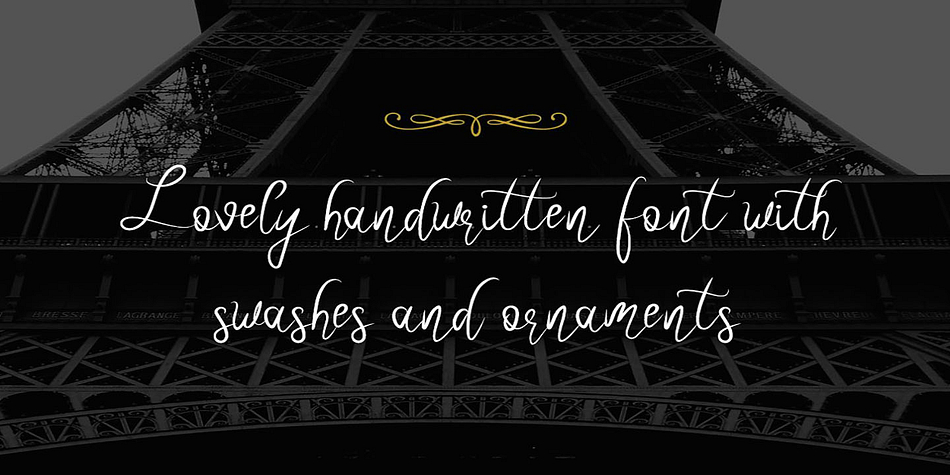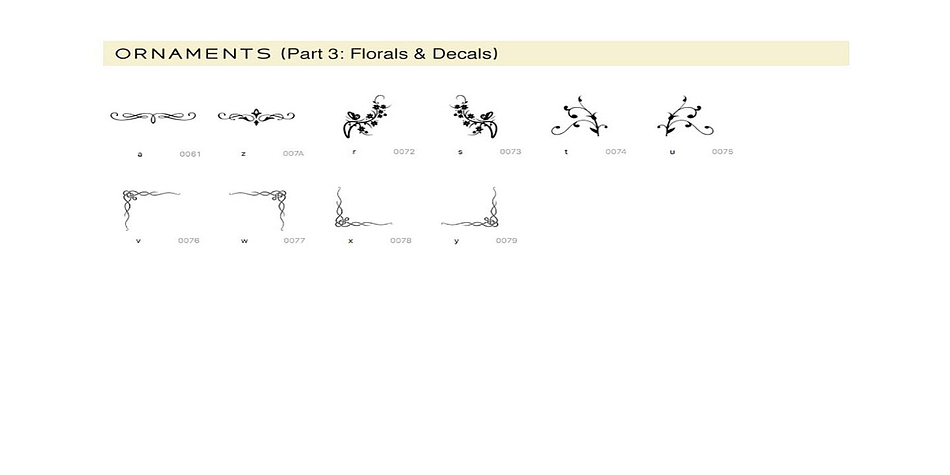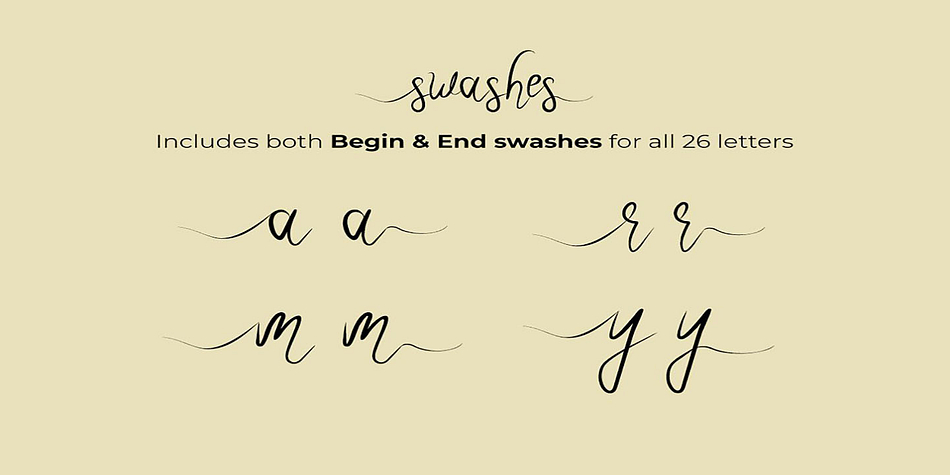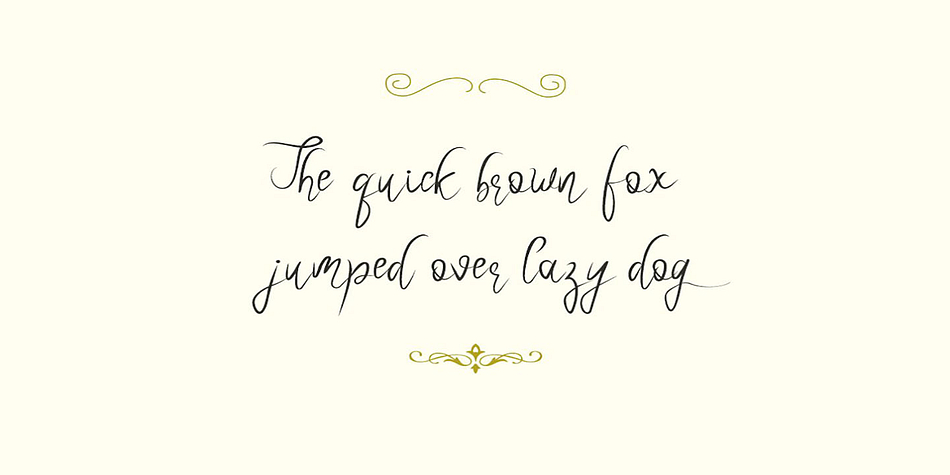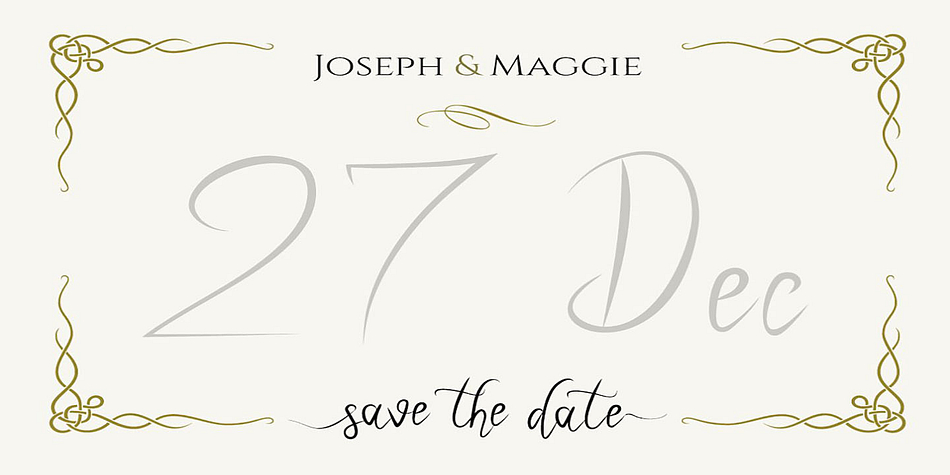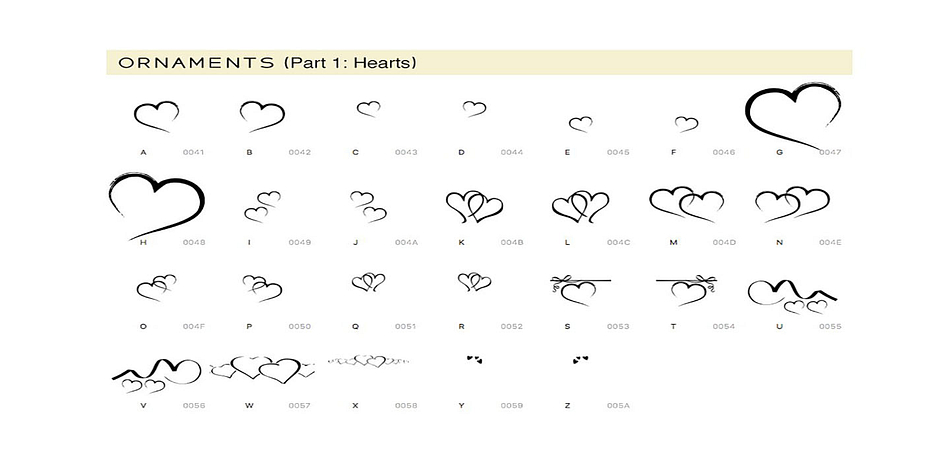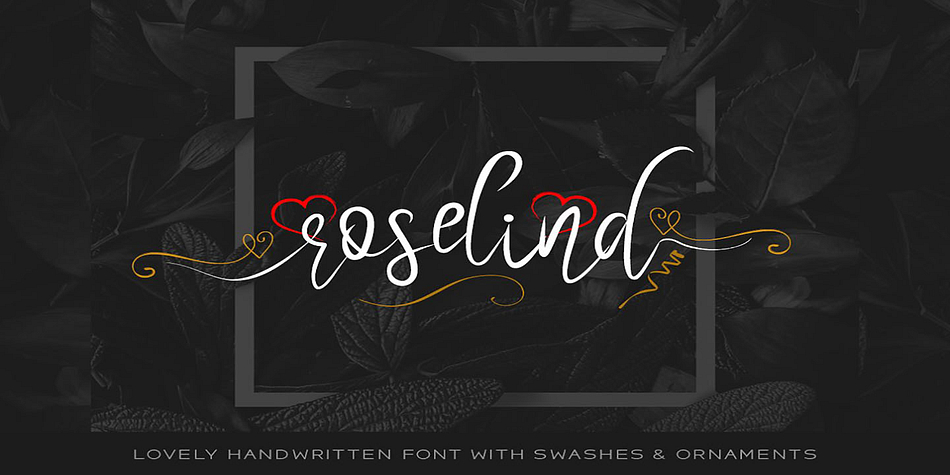
Roselind
Roselind is a modern calligraphy, script and dingbat font family. This typeface has four styles and was published by Fontastica.
Roselind - a beautiful handwritten font with dedicated swashes & ornaments. This font is perfect for wedding & invitation cards, lovely posters, cute logos and anything in between. Font contains normal handwritten letters (both uppercase and lowercase), begin swashes, end swashes and dedicated ornaments (hearts, ribbons, decals).
Normal set (uppercase & lowercase)
Lowercase set with Begin Swashes
Lowercase set with End Swashes
62 Unique Ornaments (hearts, ribbons. florals & decals)
Advanced Kerning & Essential Ligatures:
We have performed advanced, in-depth kerning to make sure the font looks amazing on all possible letter combinations. Also includes some essential ligatures shown in the preview